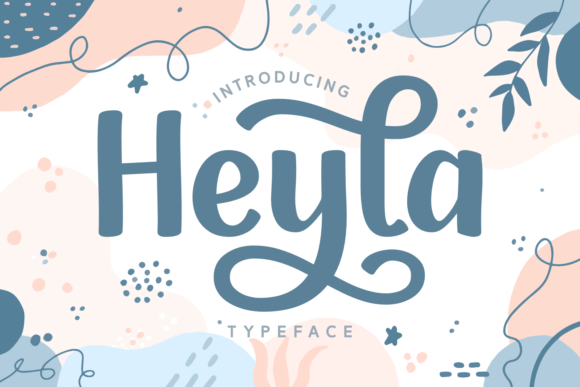
Heyla Font
Embark on a typographic adventure with Heyla Font, a captivating script font that dances across your designs with grace and elegance. Created by the visionary KristoperRansz, Heyla is a font like no other. Its charming and playful characters ignite a sense of wonder and joy, leaving a lasting impression on your audience.
With Heyla's PUA encoding, you'll have access to a treasure trove of glyphs and swashes that unlock endless creative possibilities. Effortlessly add a touch of whimsy and personality to your magazine covers, creating designs that leap off the page and capture hearts.
Heyla is more than just a font; it's an artistic expression that transforms your words into visual masterpieces. Its delicate curves and playful strokes awaken the imagination, evoking a sense of nostalgia and romance. Whether you're crafting heartfelt invitations, designing eye-catching posters, or elevating your social media presence, Heyla will add a touch of magic to every project.
So, let your creativity soar and immerse yourself in the world of Heyla. Discover the joy of creating designs that resonate with your audience and leave a lasting impact.